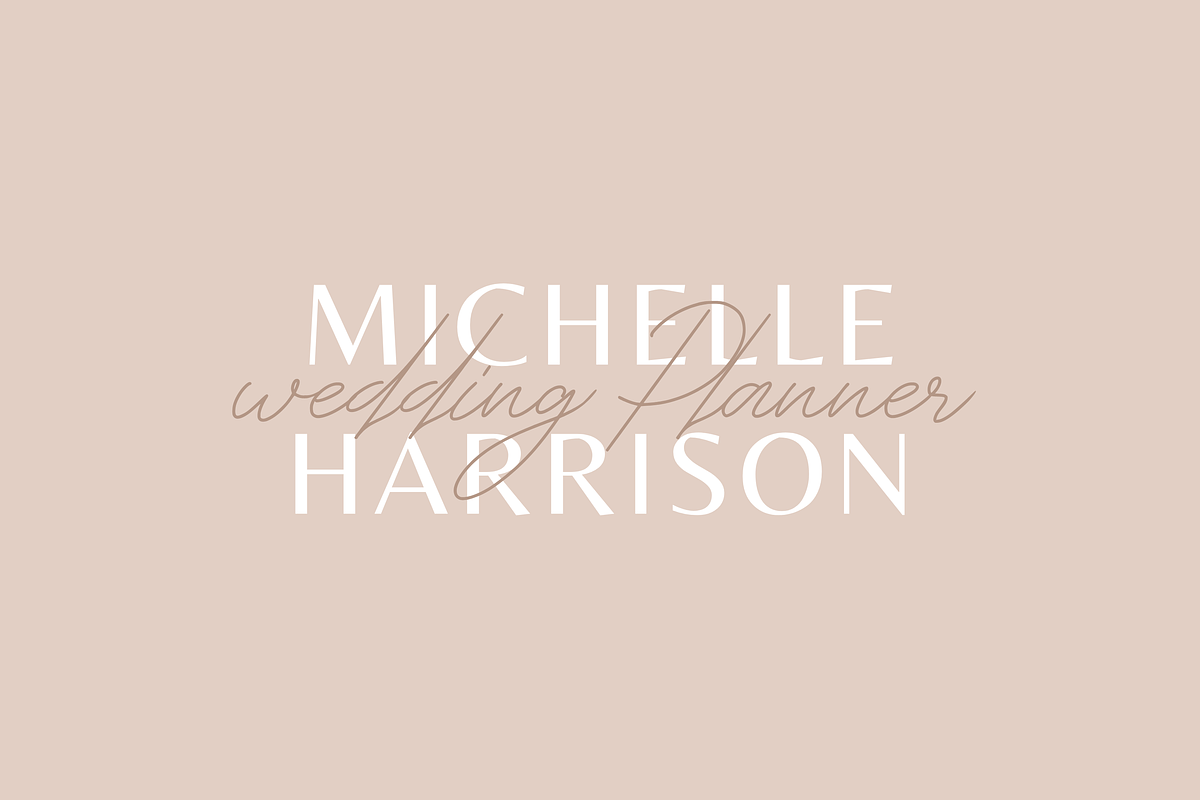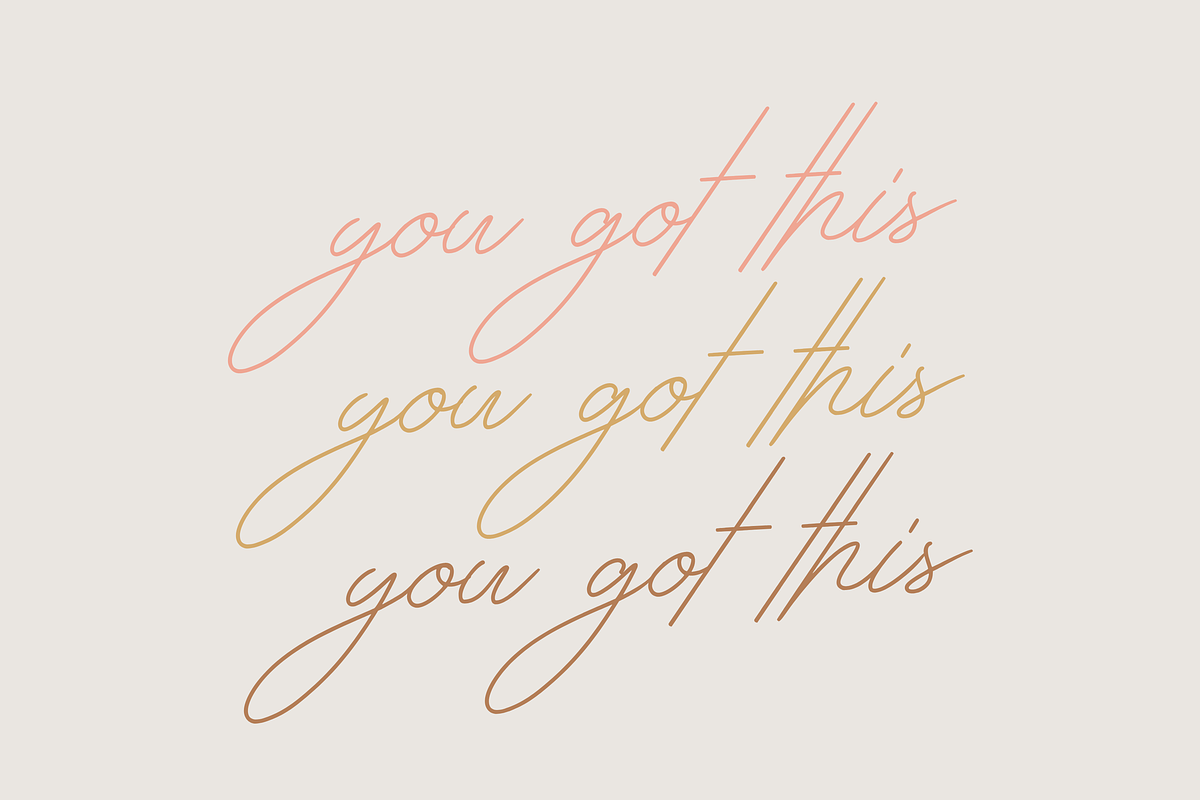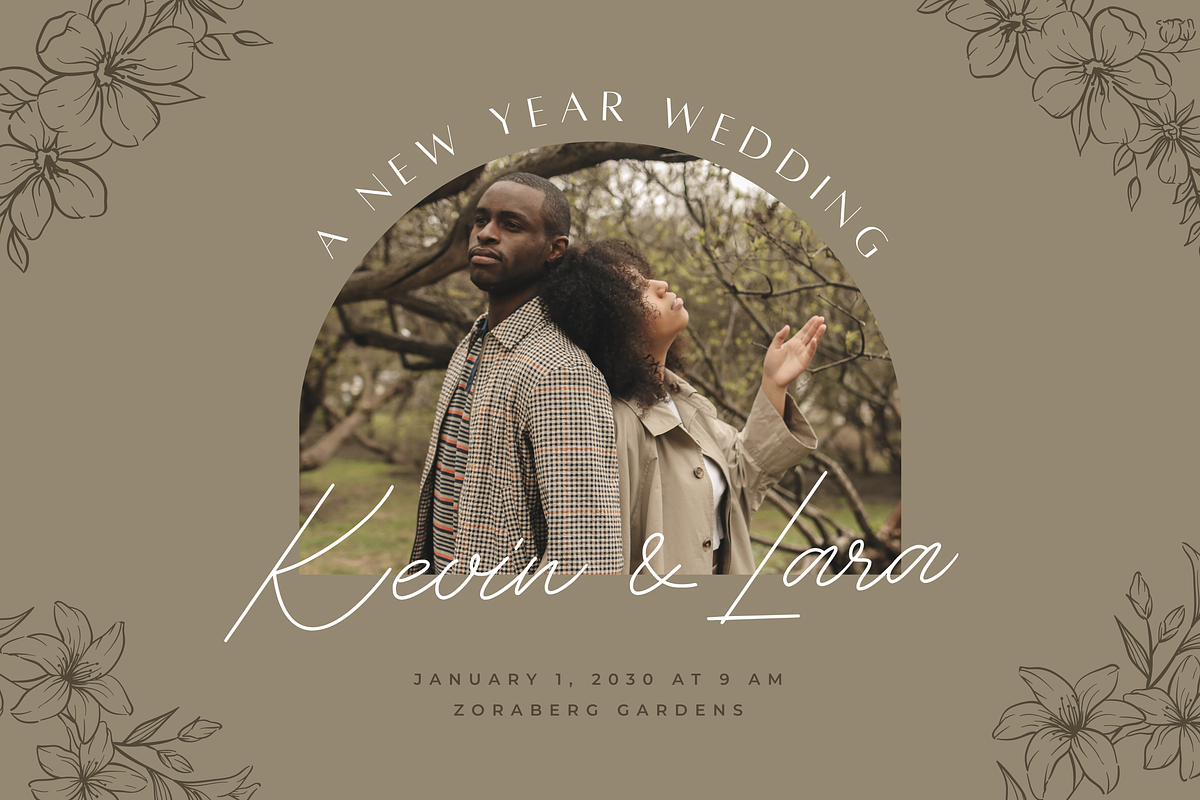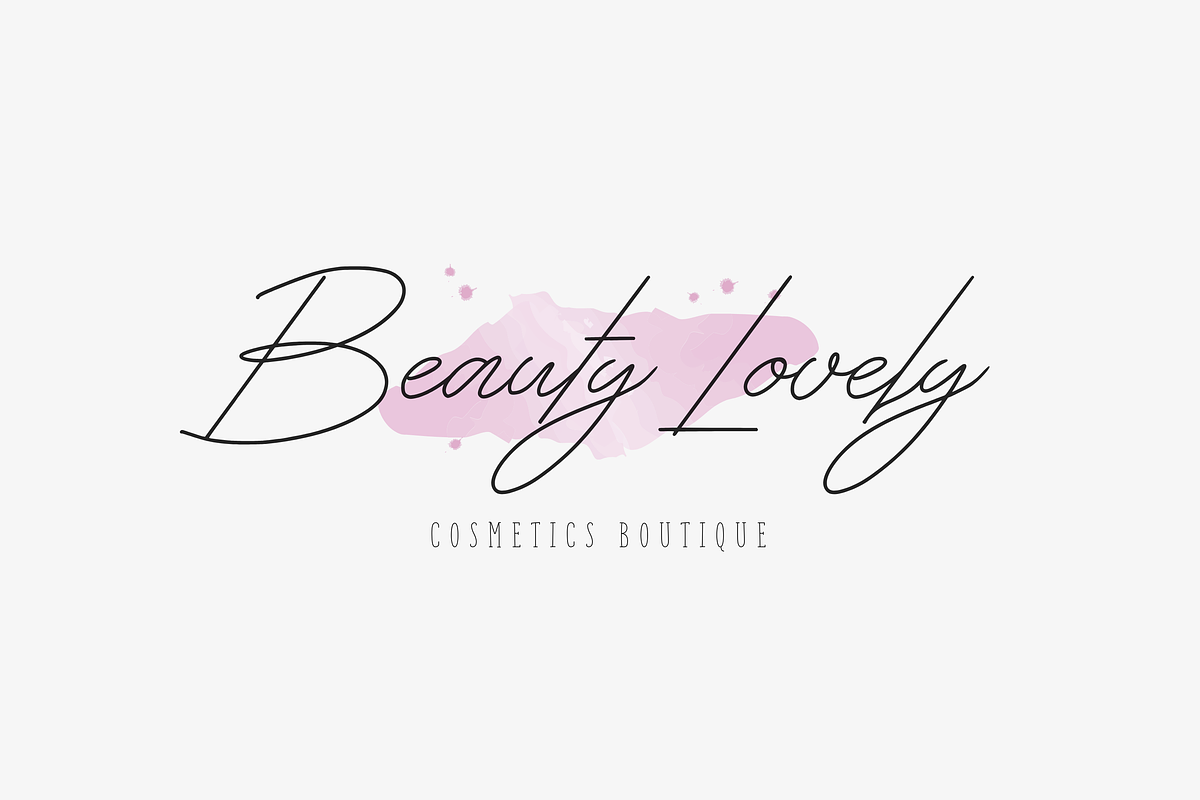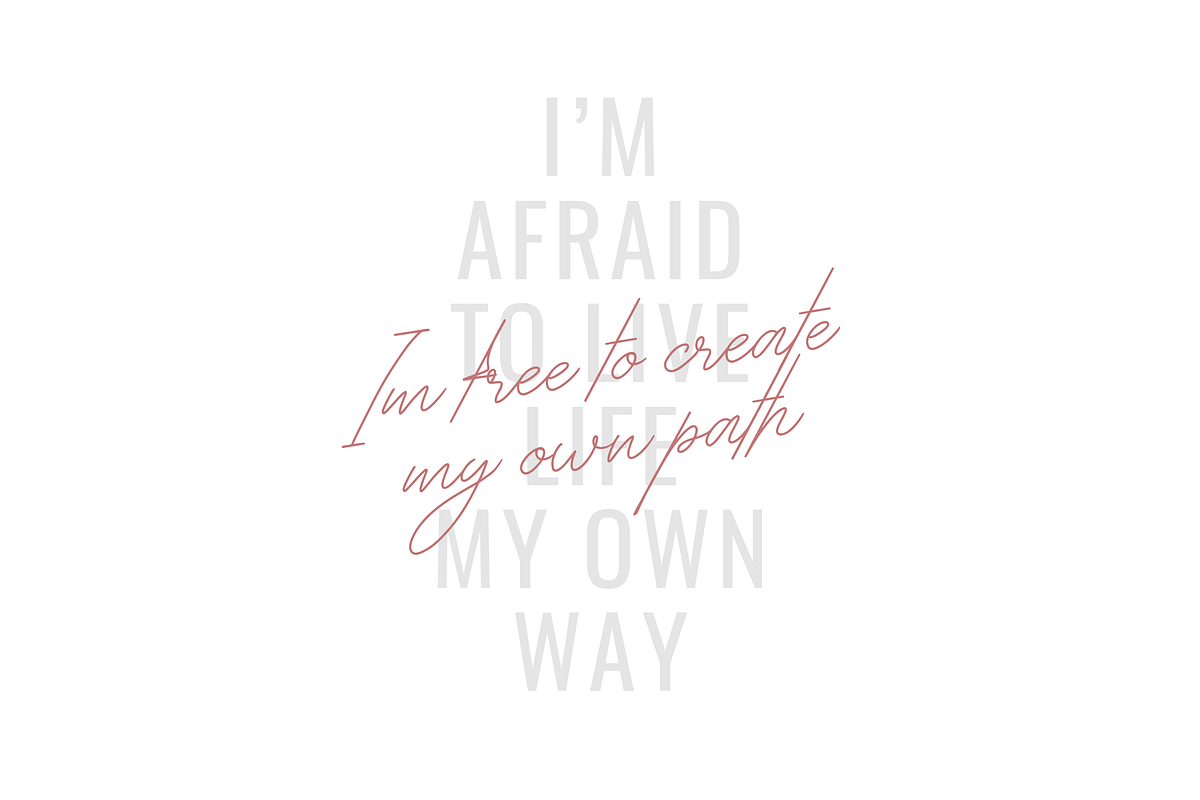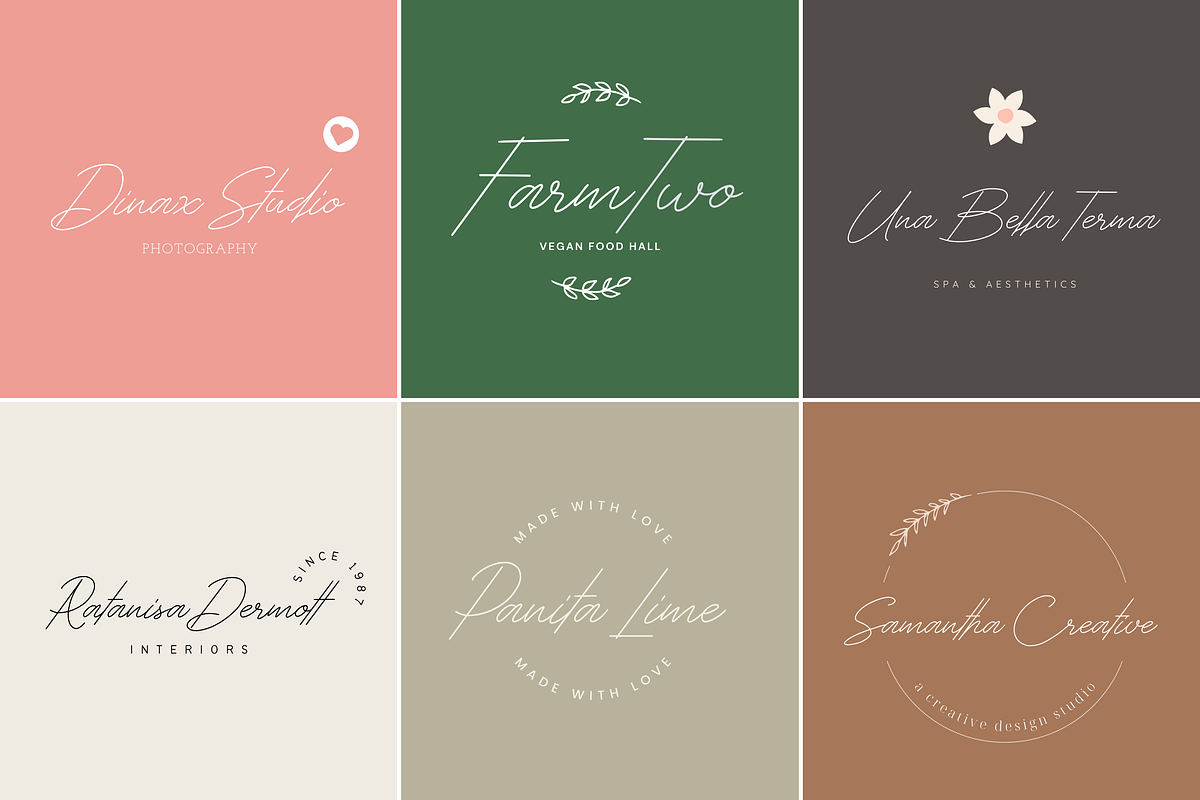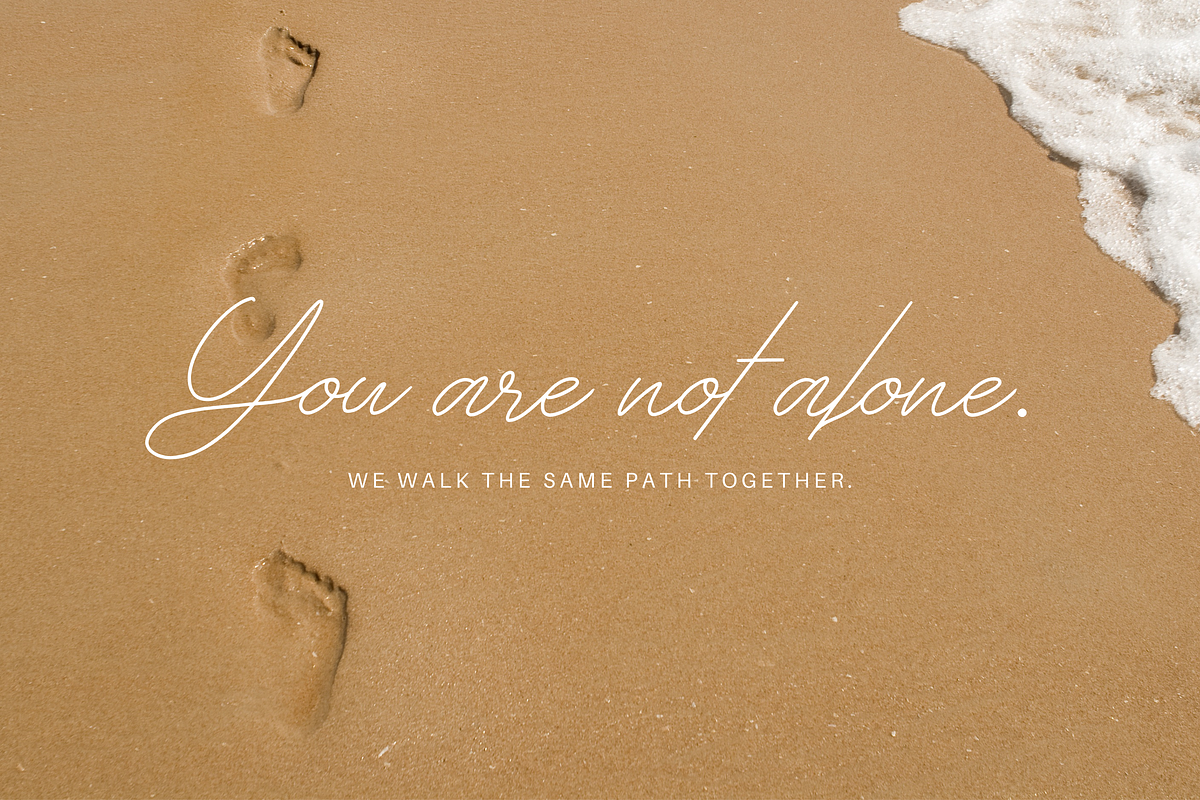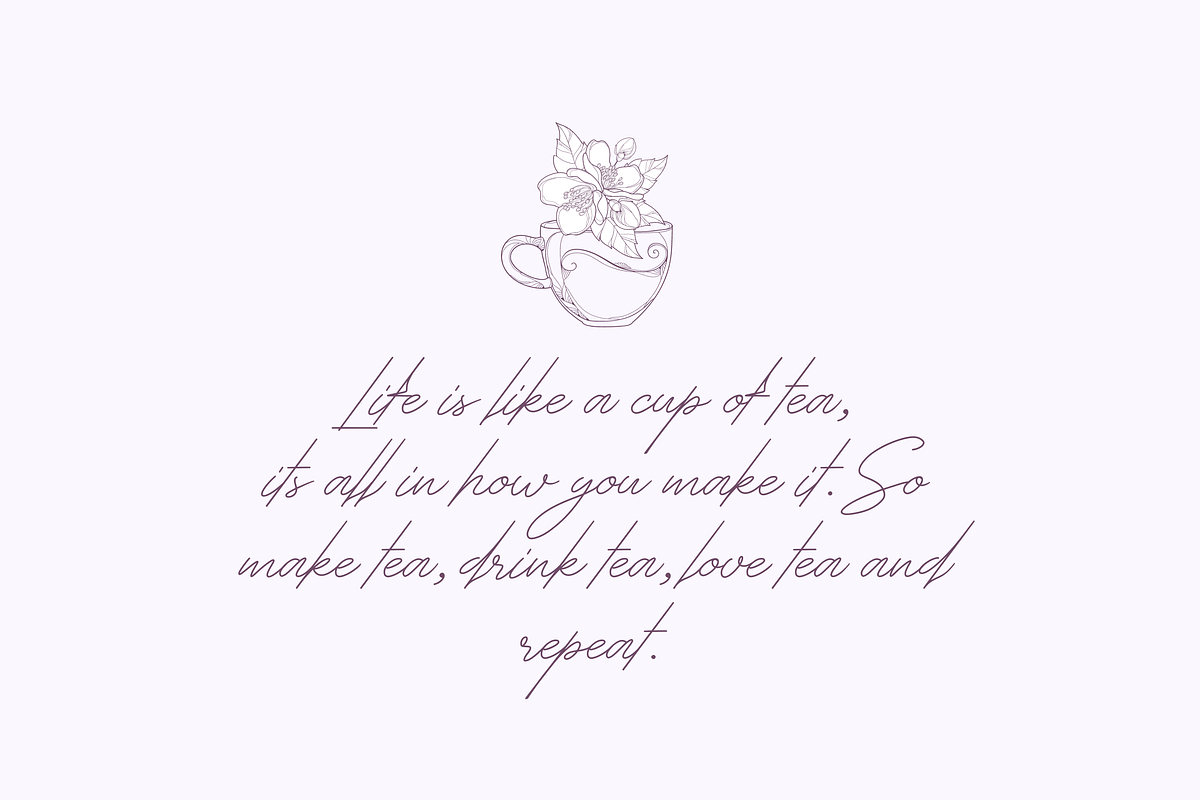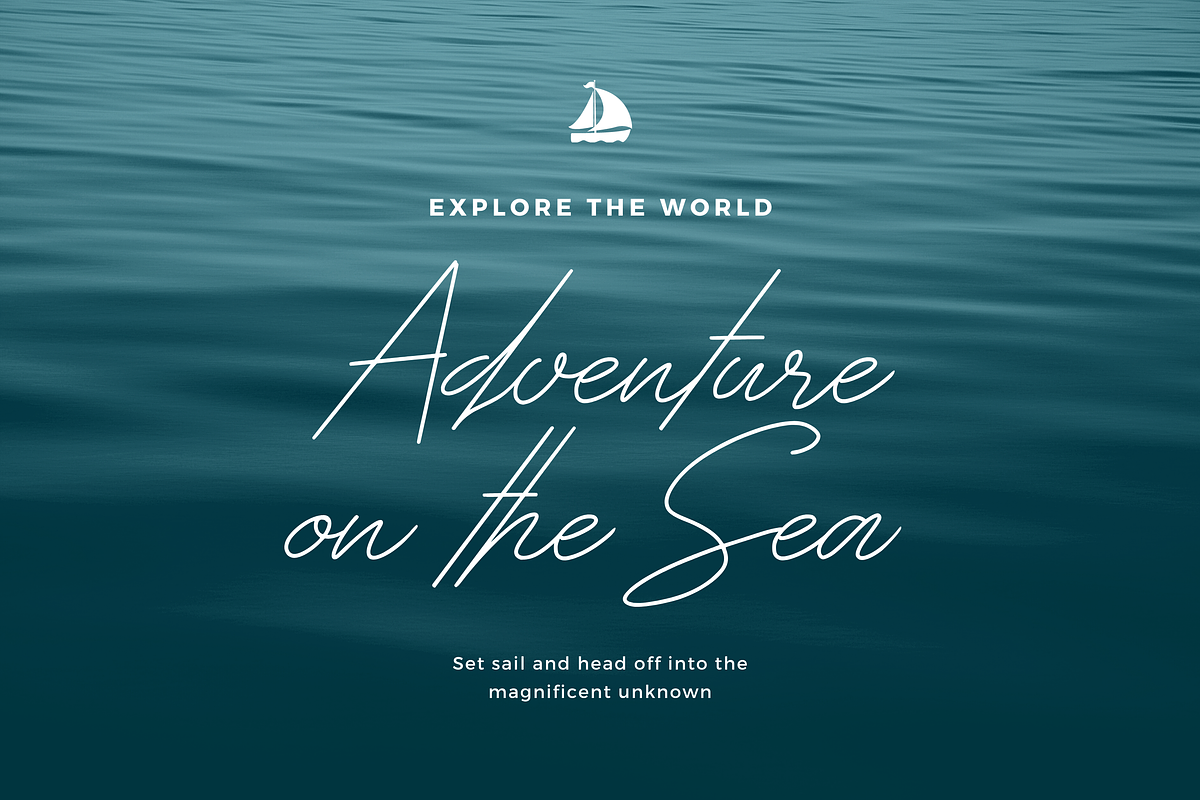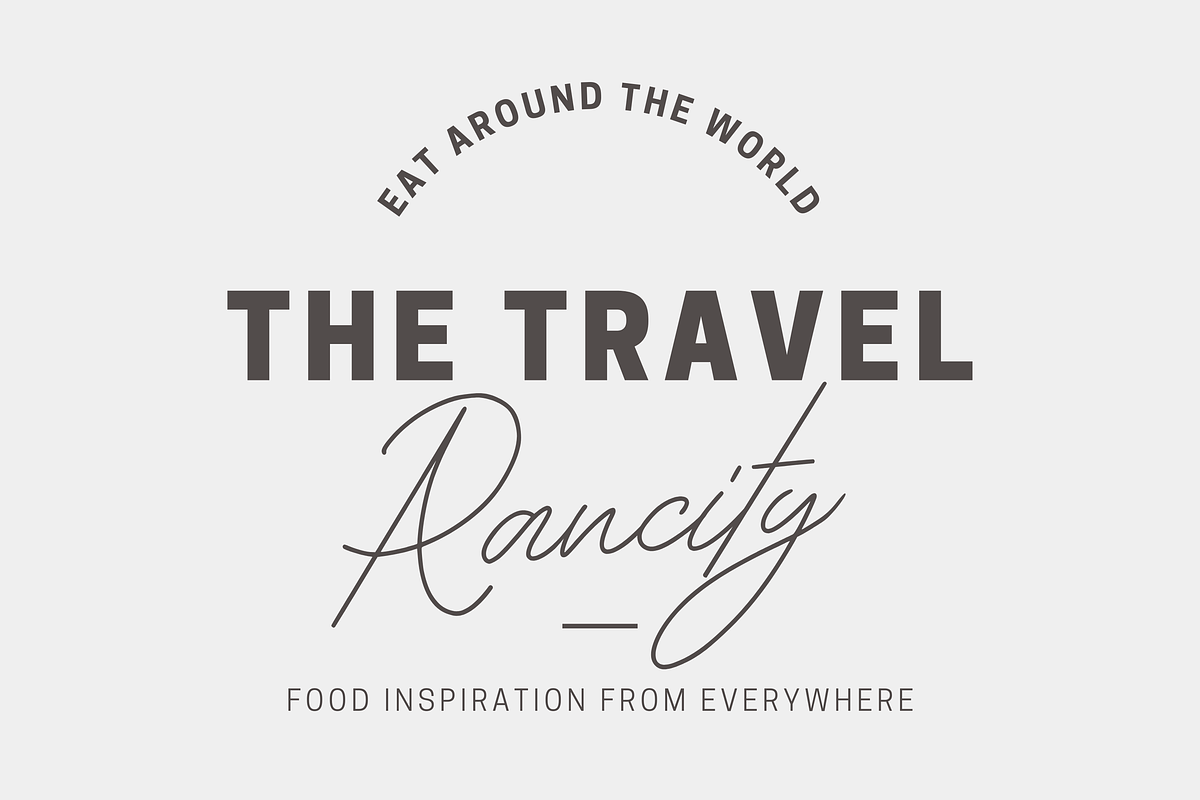
Renattosa
Renattosa is A New Organic Siganture Font. This another collection of script is perfect for your next branding project, excellent for your business. Renattosa have a natural edges, so this font gives an authentic handcrafted feel style.
Renattosa is perfect choice for people looking for clean, modern, minimalist, elegant, beauty design styles. Suitable for almost any graphic designs such as logo, branding materials, business cards, gift cards, t-shirt, cover, thumbnail, print, poster, photography, quotes .etc